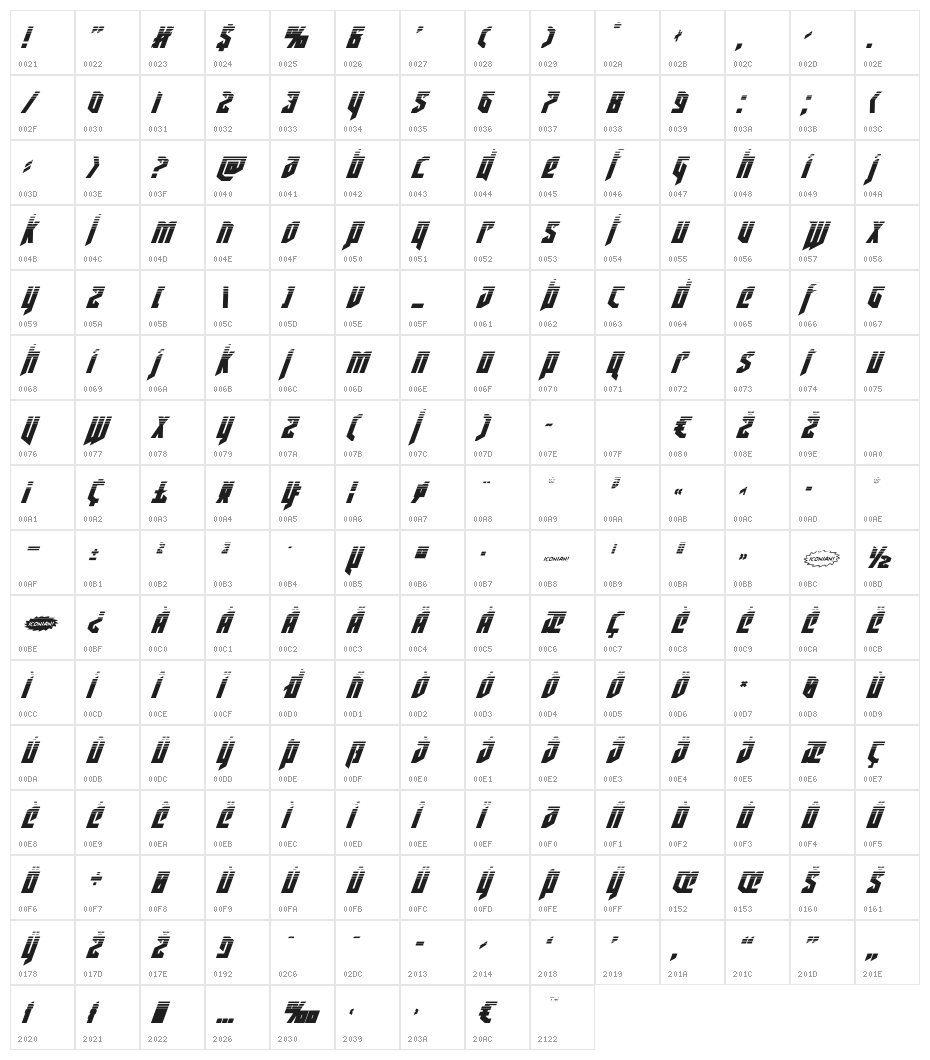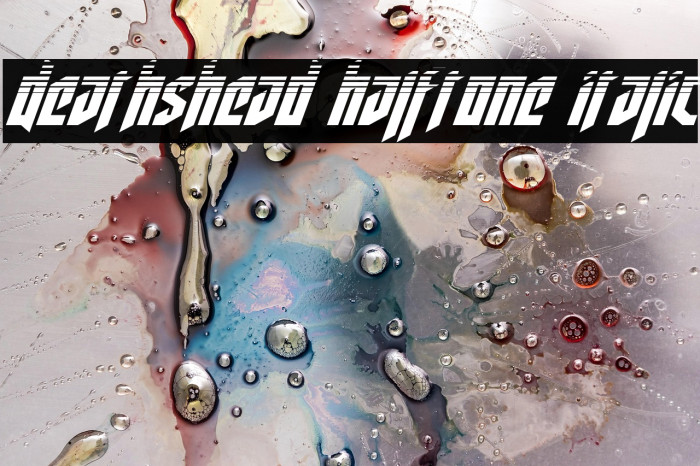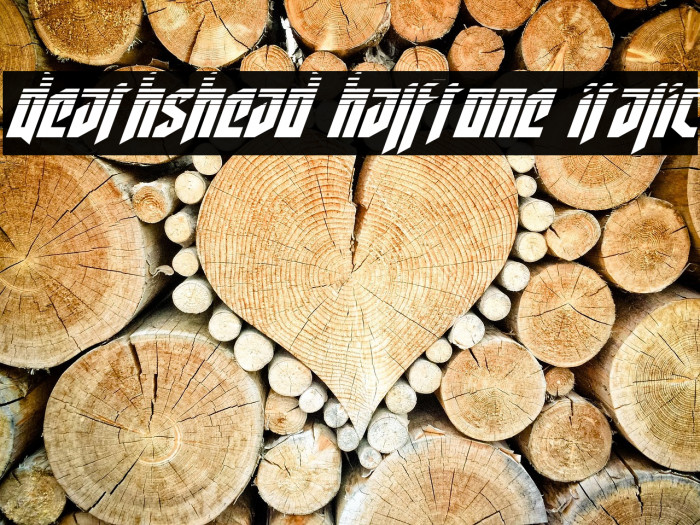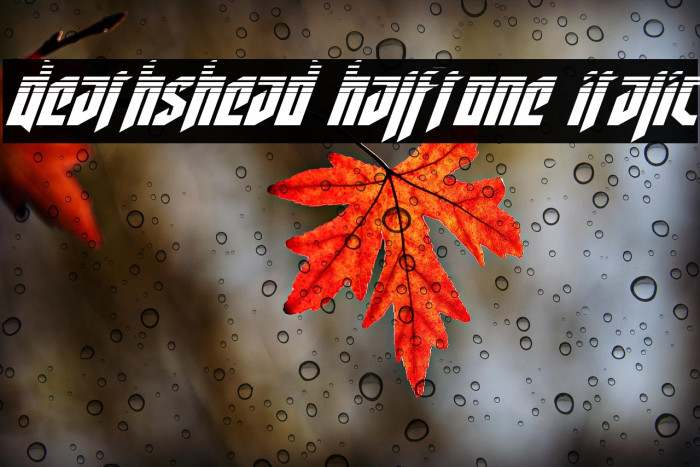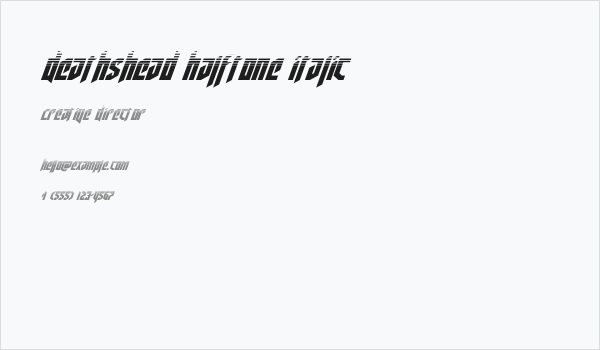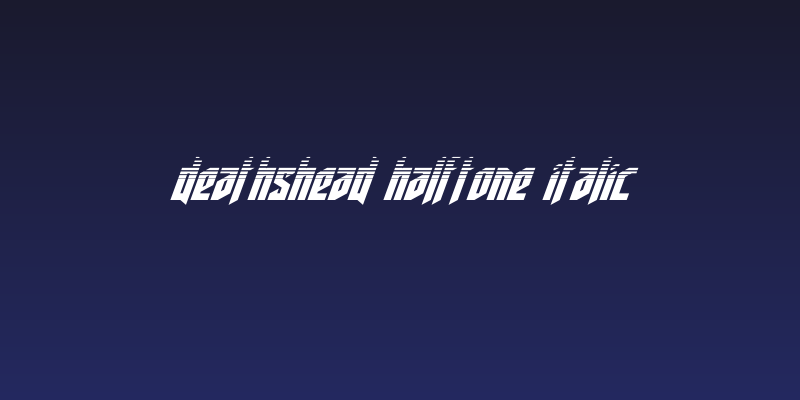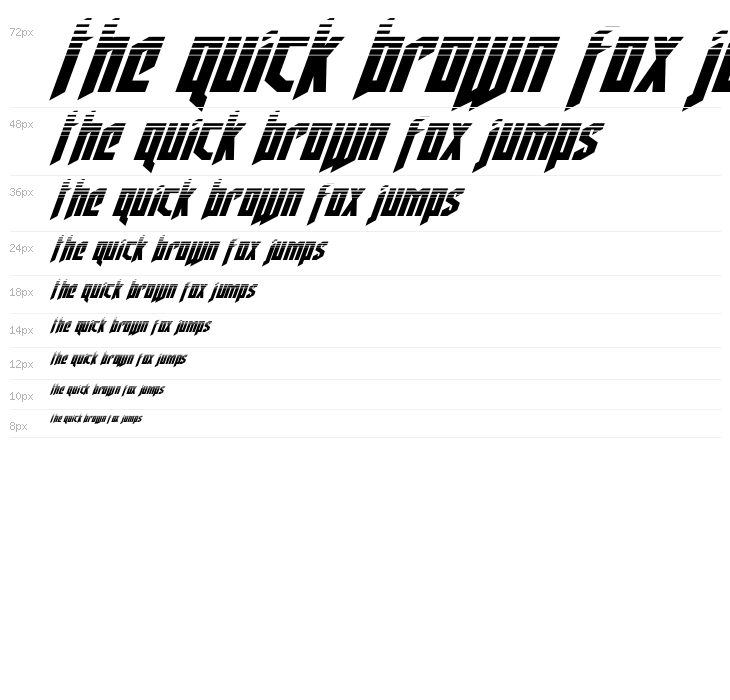
Deathshead Halftone Italic Font
Deathshead Halftone Italic Description
This font features a bold and dynamic design with a distinct halftone effect that gives it a unique, edgy appearance. The characters are italicized, adding a sense of motion and urgency. The angular and sharp edges of the letters create a futuristic and aggressive style, making it stand out in any design. The uppercase and lowercase letters maintain a consistent style, with the halftone pattern adding depth and texture. Numbers and special characters are designed with the same attention to detail, ensuring a cohesive look across all elements. This font is ideal for projects that require a bold statement and a modern, cutting-edge aesthetic.